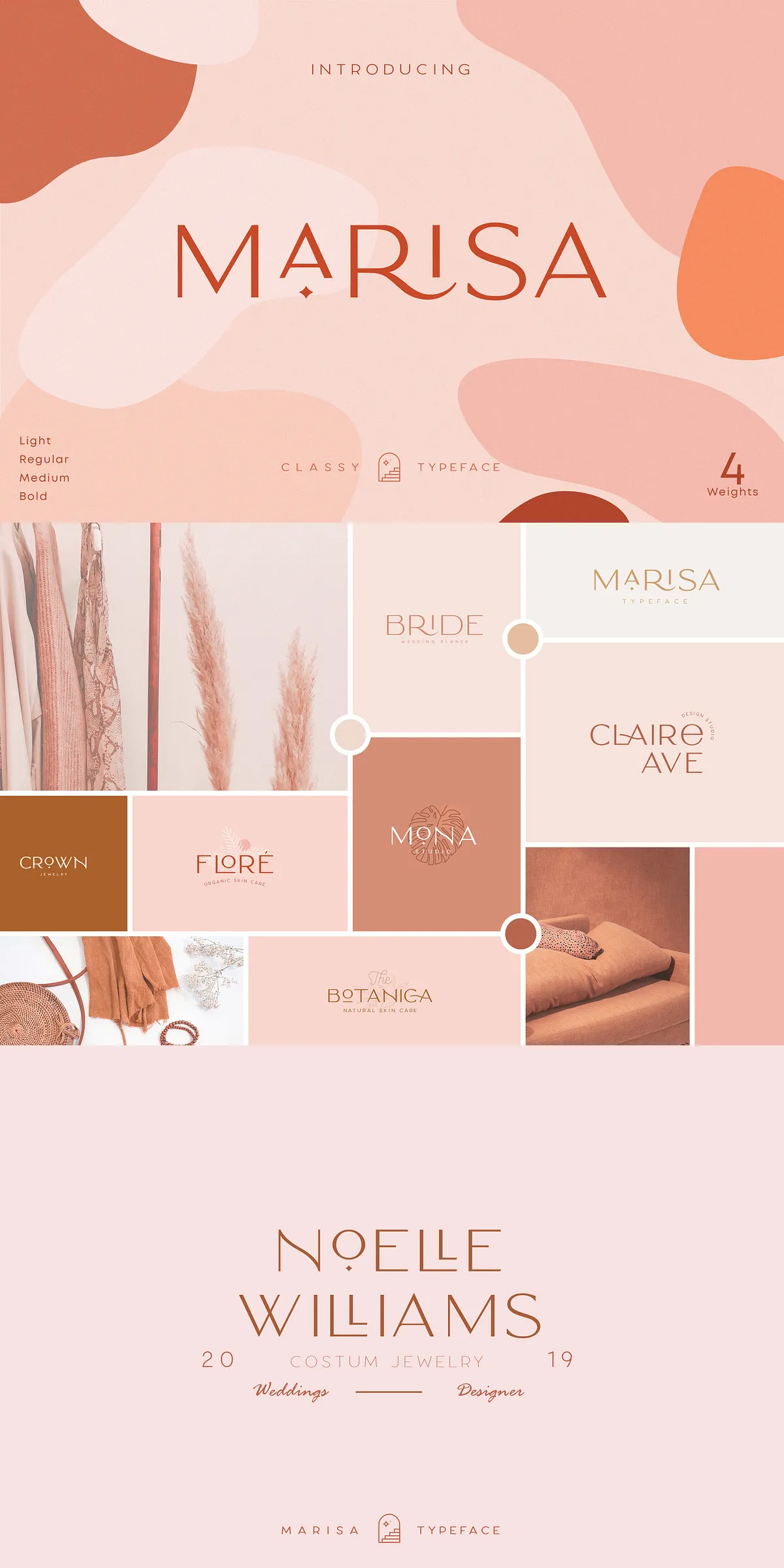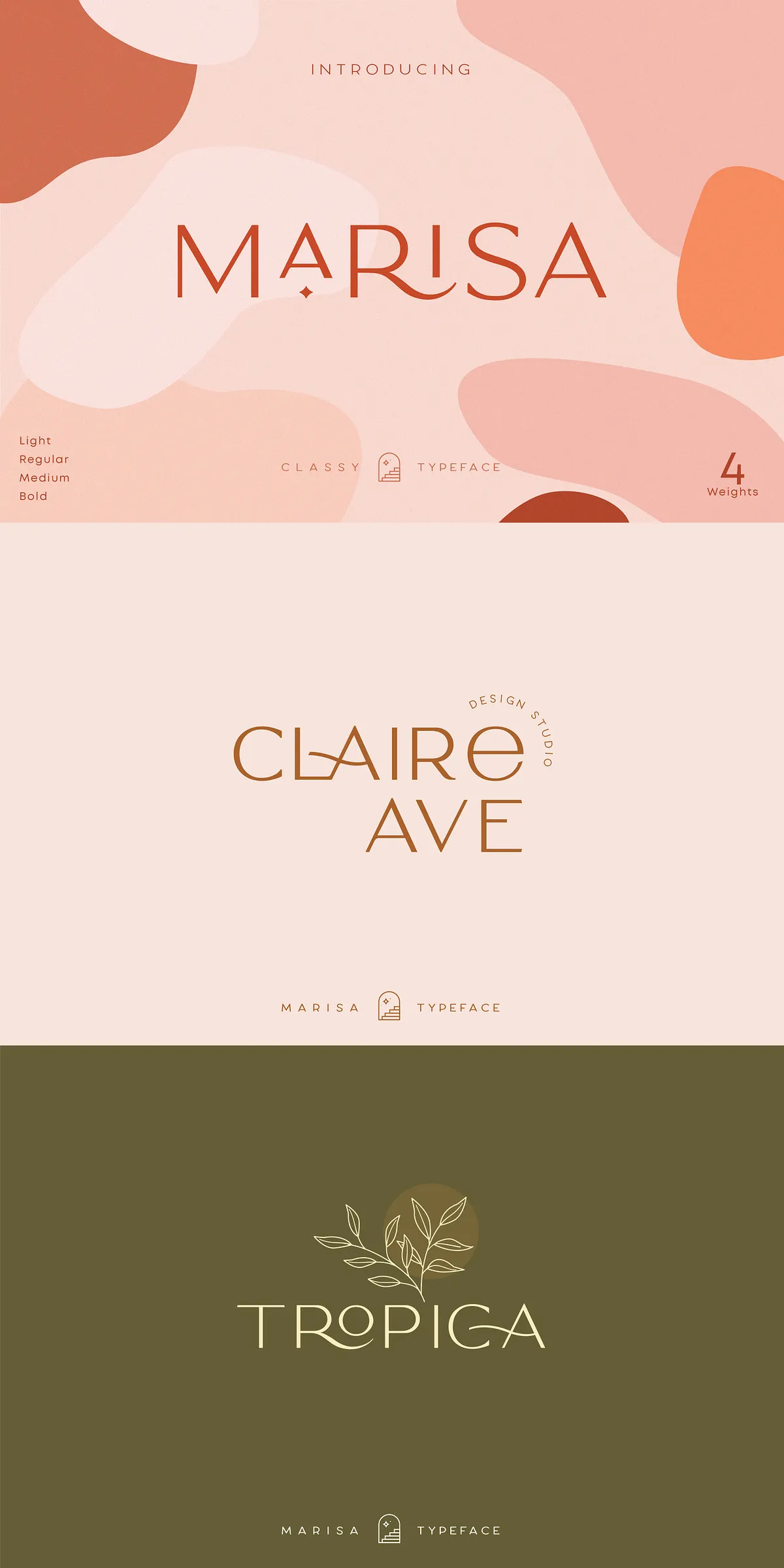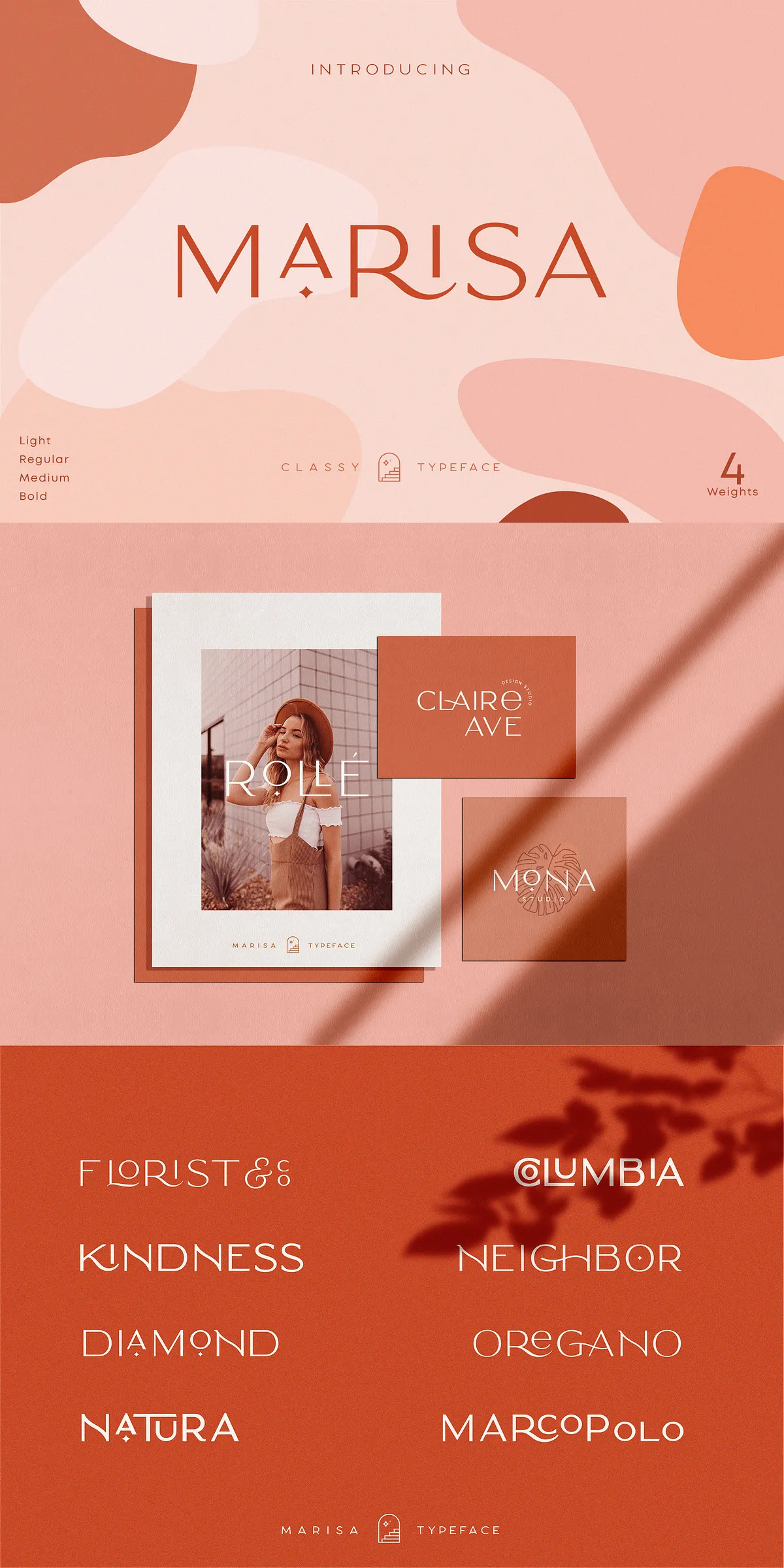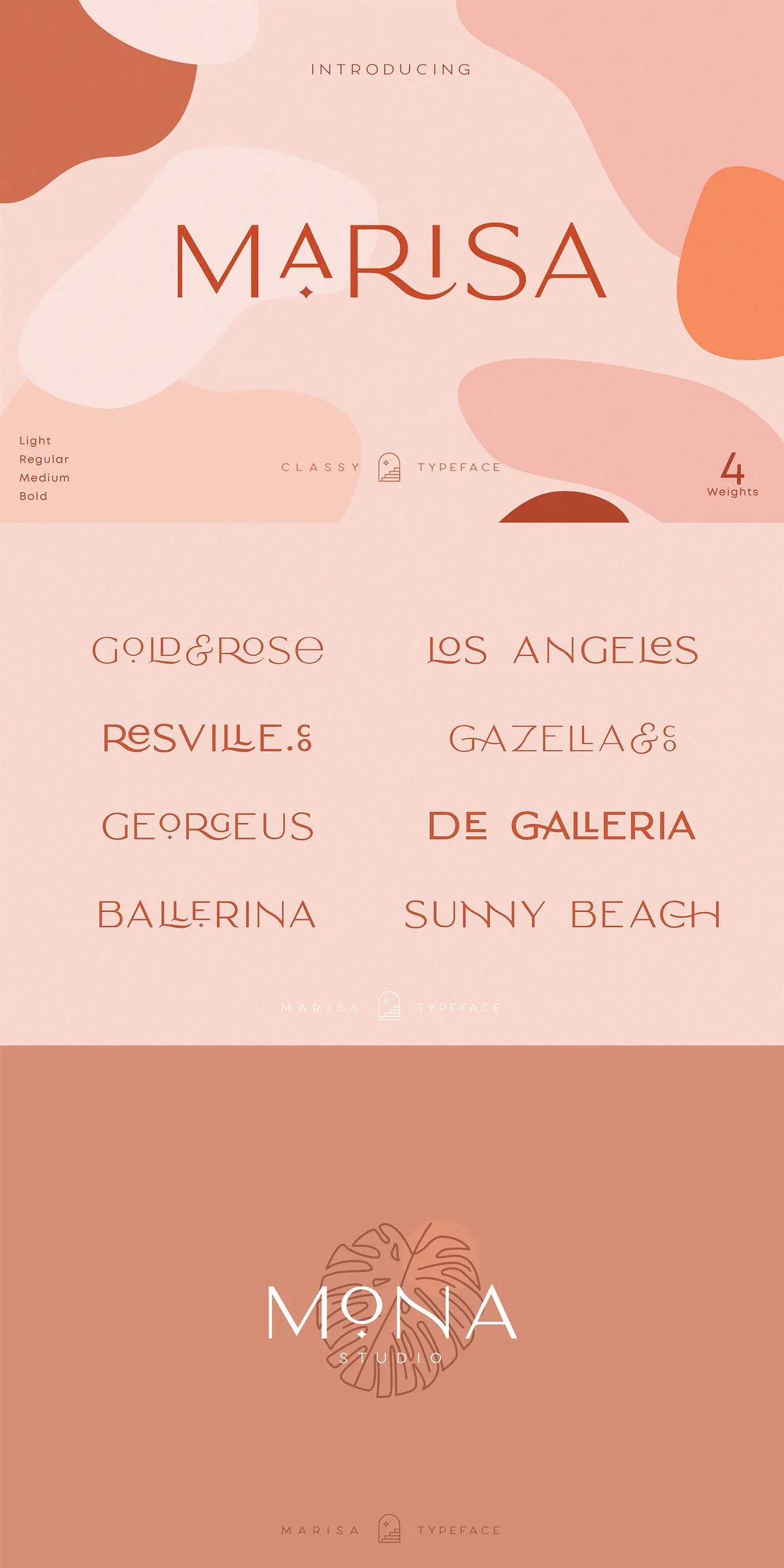
When sophistication meets retro charm, the result is Classy Marisa—a meticulously crafted minimalist modern vintage font that redefines timeless appeal. Built for designers who appreciate precision, grace, and artistic depth, this elegant typeface blends clean lines with subtle retro flair. Whether you’re crafting a luxury brand identity, a high-end product label, or a striking magazine header, Classy Marisa brings refined character, undeniable presence, and effortless style to every project.
Why Classy Marisa Stands Out: A Typeface Built for Impact
Classy Marisa is not just a font—it’s a design statement. With its balanced geometry, delicate serif details, and restrained ornamentation, it captures the essence of mid-century elegance while feeling entirely contemporary. The font exudes quiet confidence, drawing the eye with its refined structure and harmonious proportions. Every letterform is carefully thought out to ensure legibility without sacrificing personality, making it equally powerful in headlines and subtleties.
Rich Typography Features for Creative Mastery
- 4 Weights Included: From light to bold, each weight delivers consistent elegance and allows dynamic contrast in layouts.
- All Caps Design: Ensures strong visual impact and a sleek, modern aesthetic—ideal for branding and logo systems.
- Stylistic Alternates & Ligatures: Automatically enhance flow and uniqueness. Swap in alternate glyphs to avoid repetition and infuse your text with artistic variation.
- Extended Character Set: Supports numerals, punctuation, and special symbols, enabling full flexibility in text composition.
- Accented Characters & Multilingual Support: Fully equipped for international use, supporting multiple languages, including French, German, Spanish, Italian, and more—perfect for global branding.
Unleash Versatility Across Every Creative Discipline
Classy Marisa shines in a vast range of design contexts, proving that timeless style can adapt to modern demands.
Brand Identity & Logo Design
Create a logo that speaks sophistication and heritage. Classy Marisa’s clean, structured forms project professionalism and artistry—perfect for boutique brands, luxury labels, and curated lifestyle products.
Clothing & Apparel Branding
Give your fashion line a signature voice. Use the font on tags, labels, and packaging to convey an upscale, intentional aesthetic that appeals to discerning customers.
Product Packaging & Labeling
Stand out on crowded shelves. Classy Marisa elevates minimalist packaging with a touch of vintage charm, making your product feel premium and carefully designed.
Magazine Headers & Editorial Design
Enhance storytelling with elegant typography. Its high contrast and refined details make it ideal for section titles, quotes, and feature headlines in print and digital magazines.
Text Overlays & Visual Concepts
Transform background images into visual narratives. Use Classy Marisa as a stylish text overlay on photos, illustrations, or abstract compositions—where elegance and clarity meet.
Don’t settle for ordinary. Choose a font that commands attention through subtlety, strength, and style. Classy Marisa isn’t just a typeface—it’s your new design muse.
Whether you’re designing for print, web, or social media, Classy Marisa brings a refined touch that enhances every pixel, every line, every story.
Craft with elegance. Design with intention. Stand out with Classy Marisa.